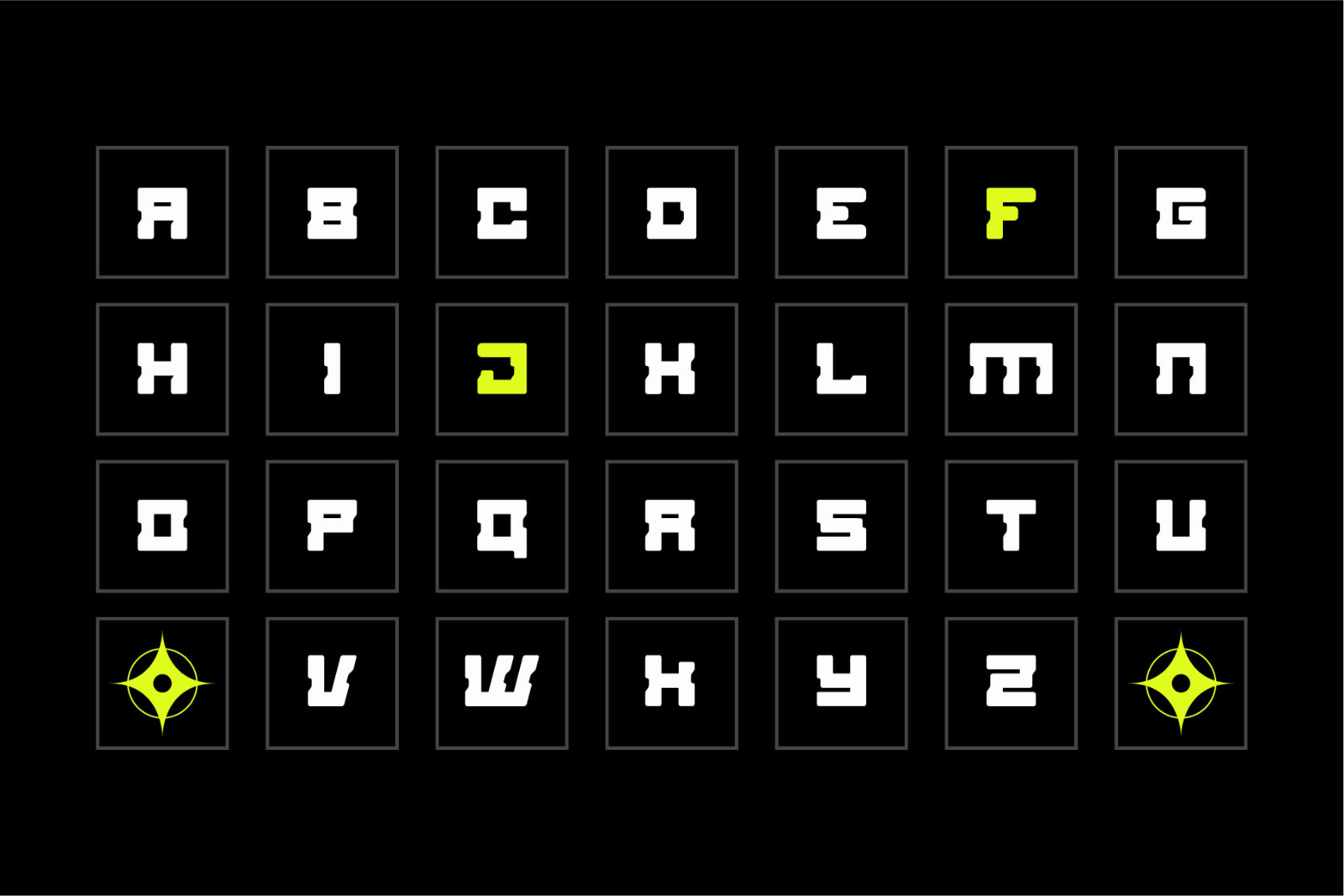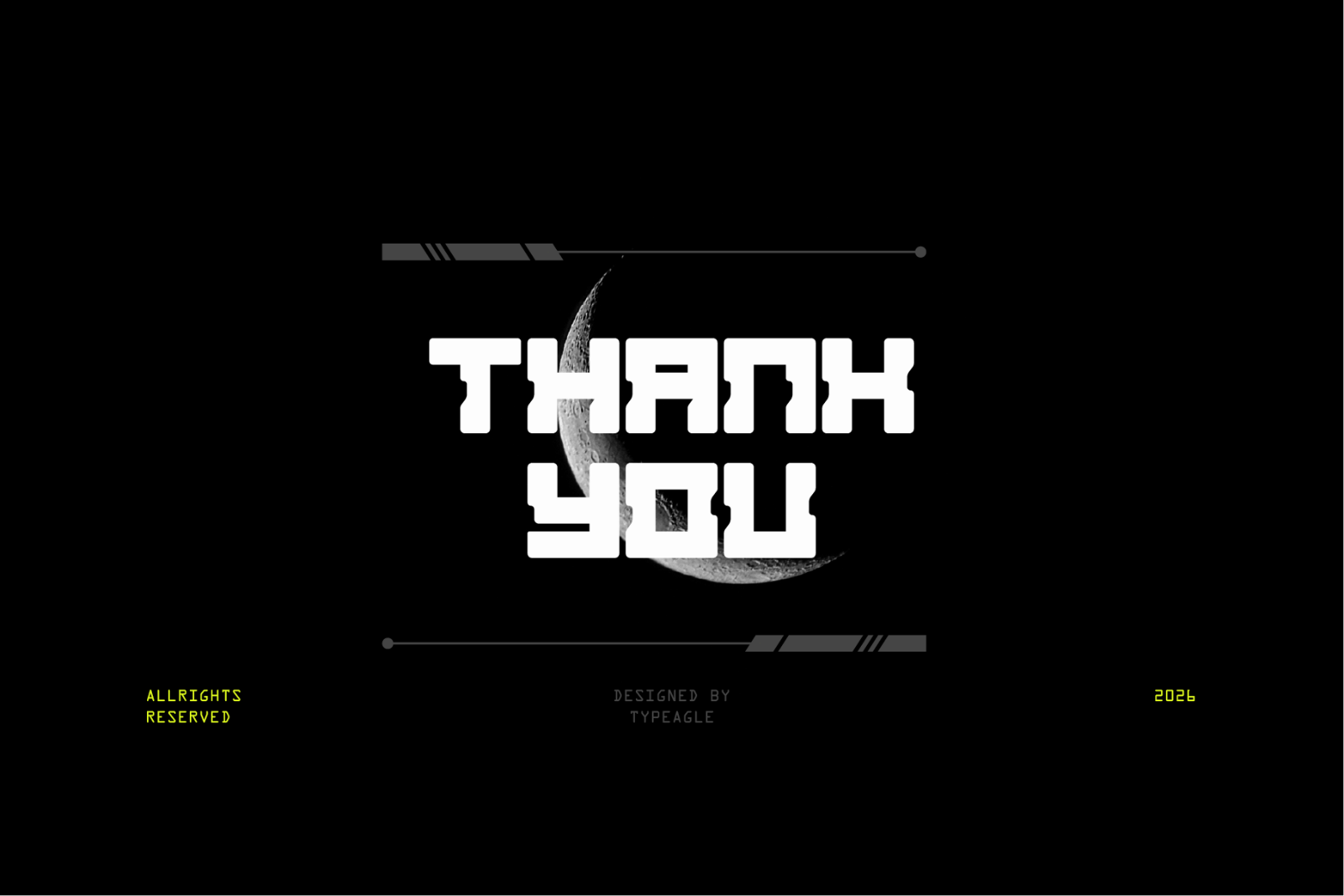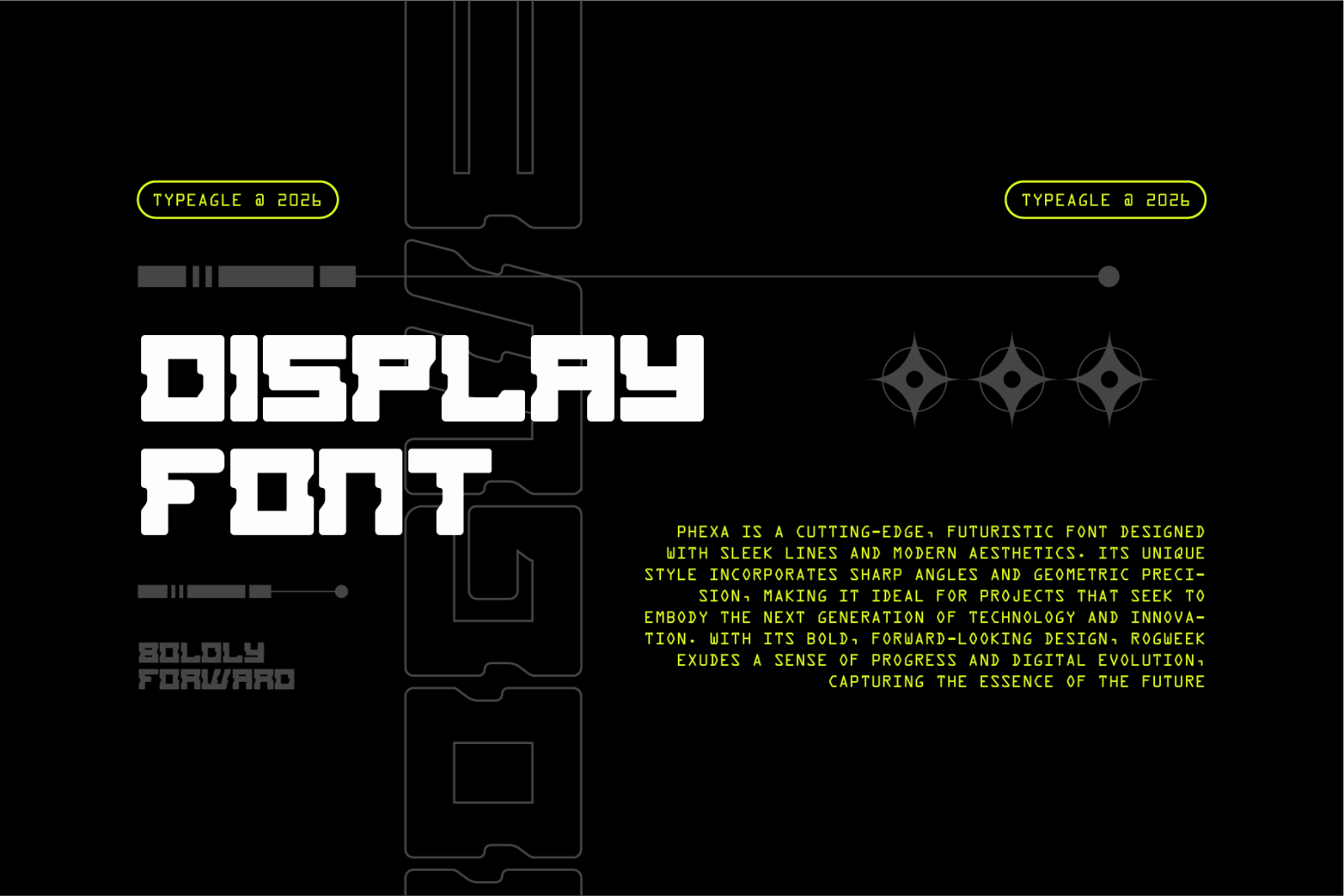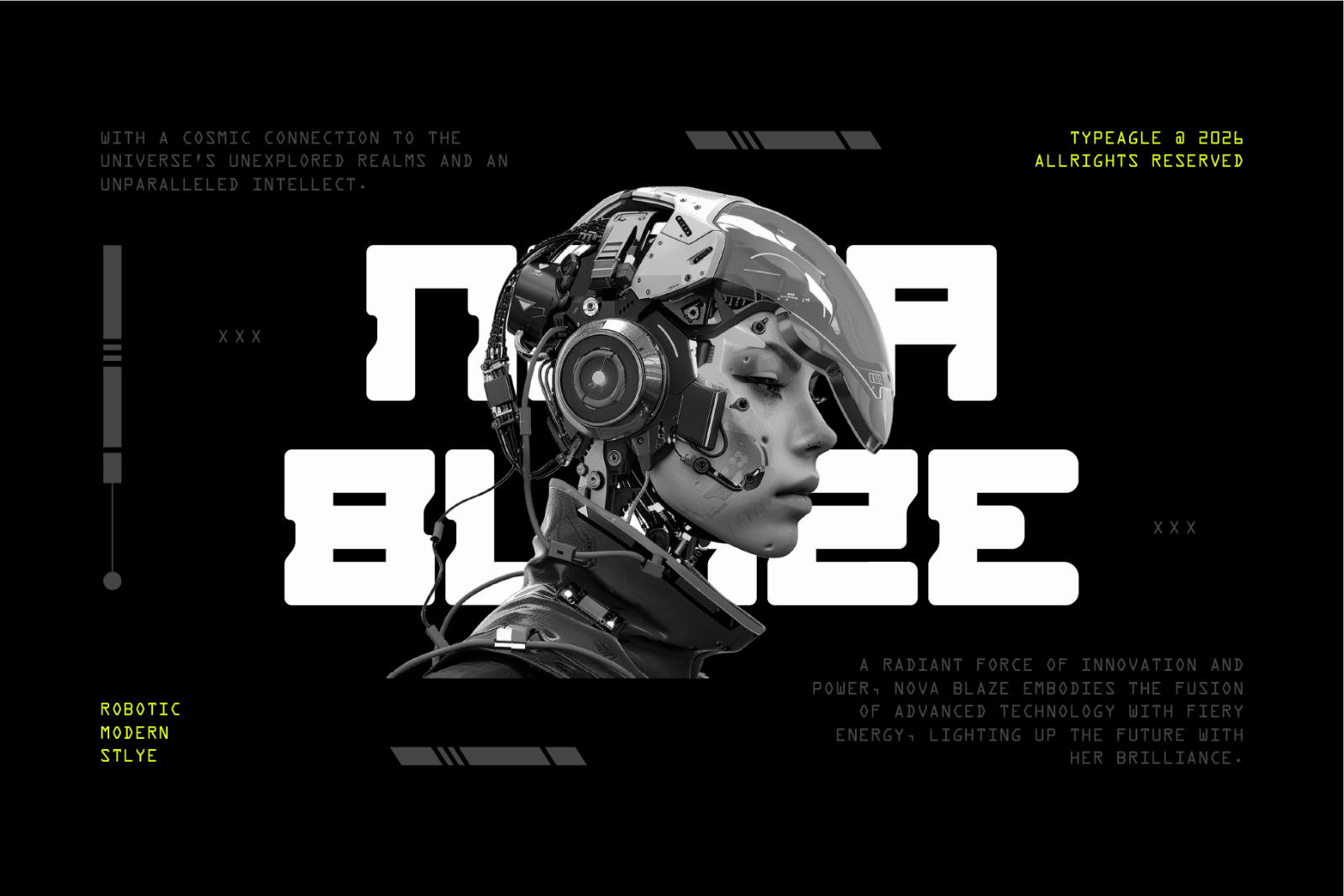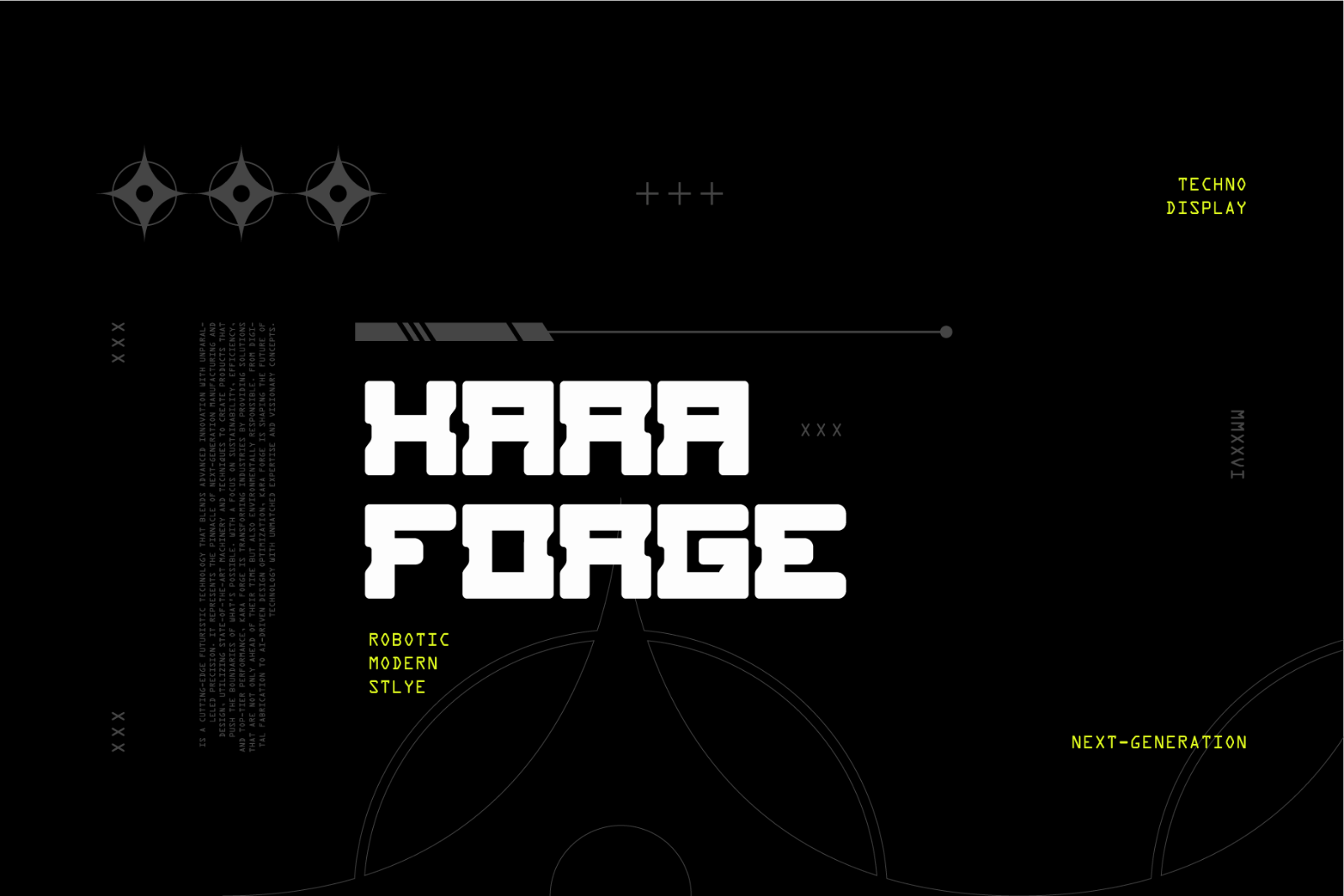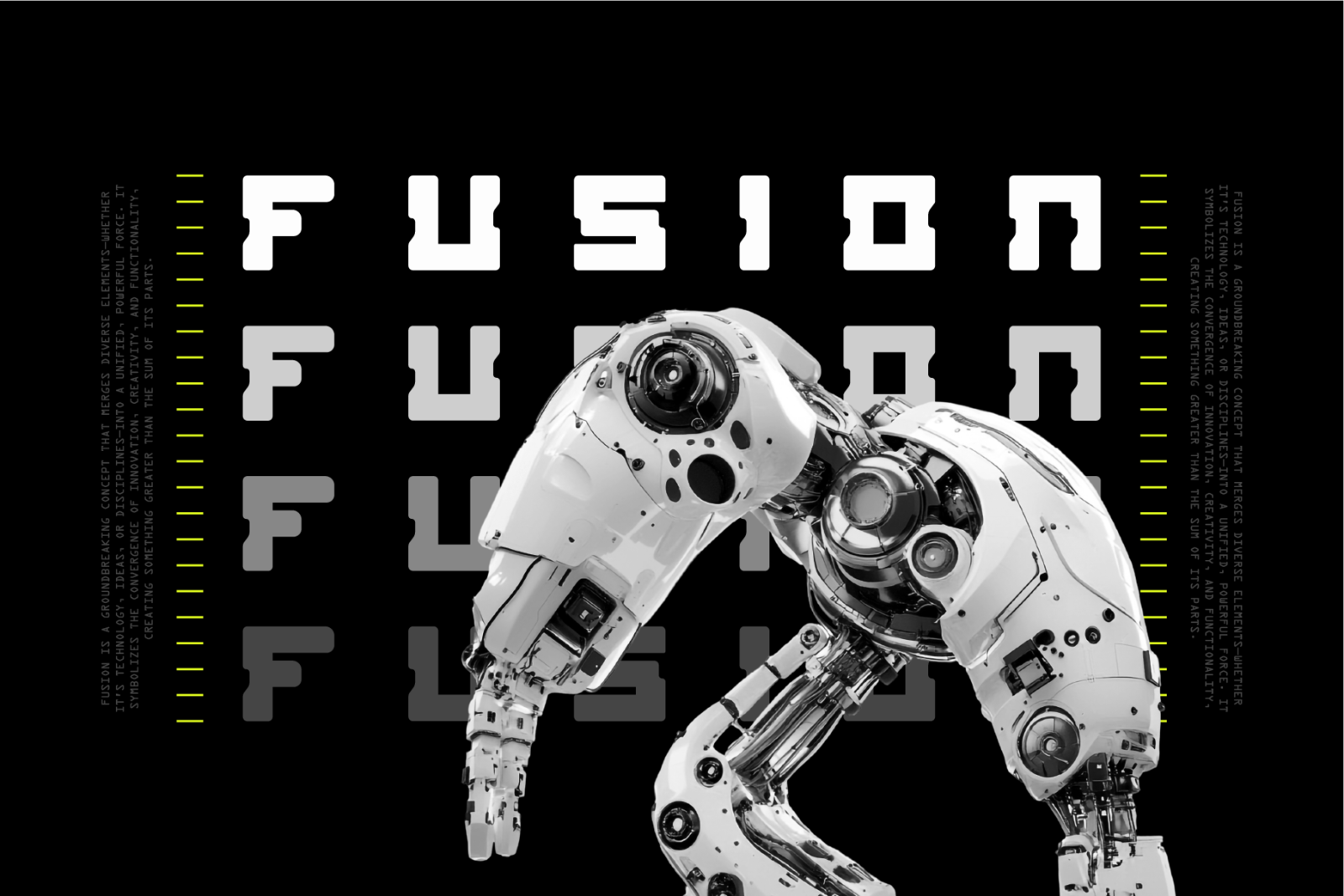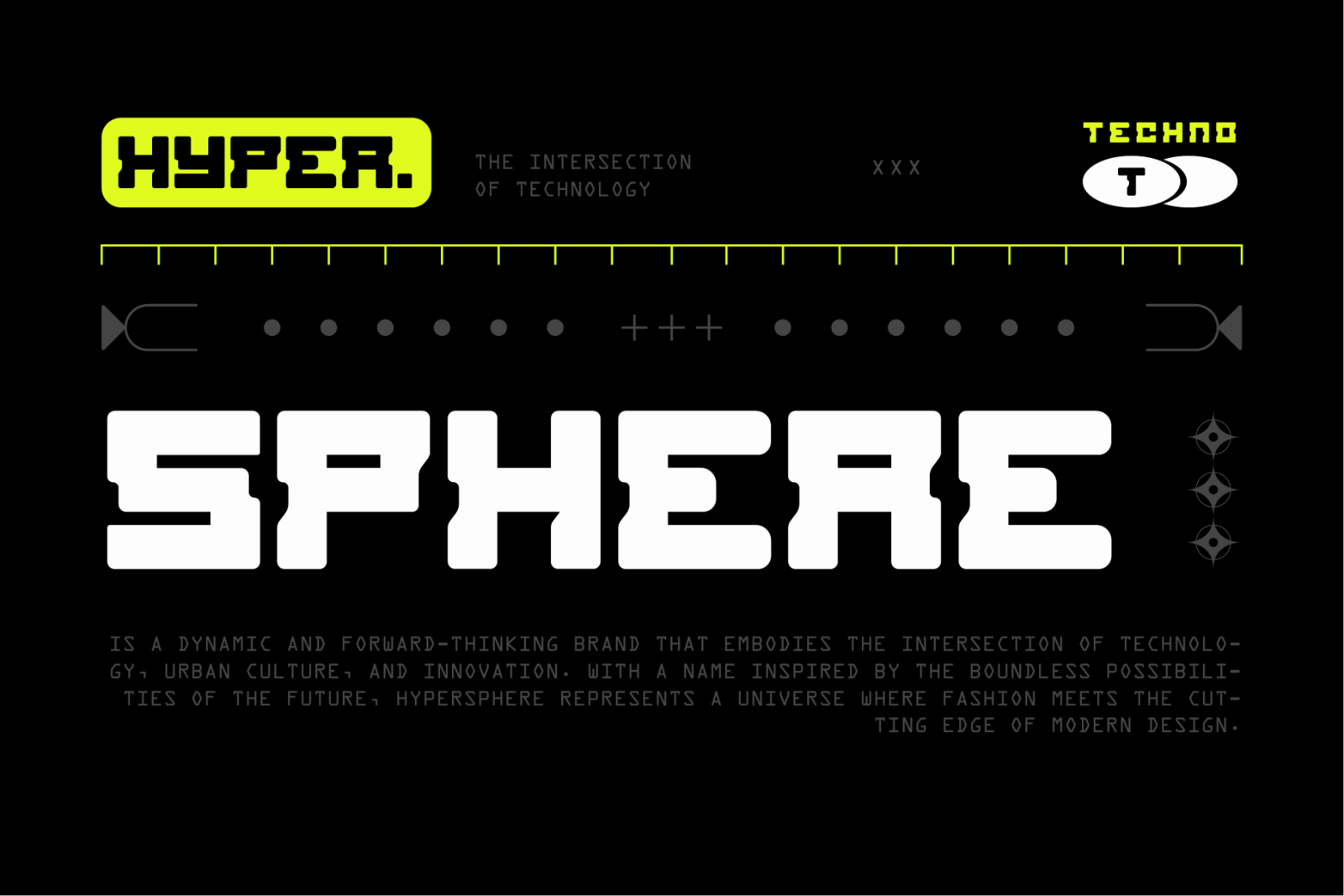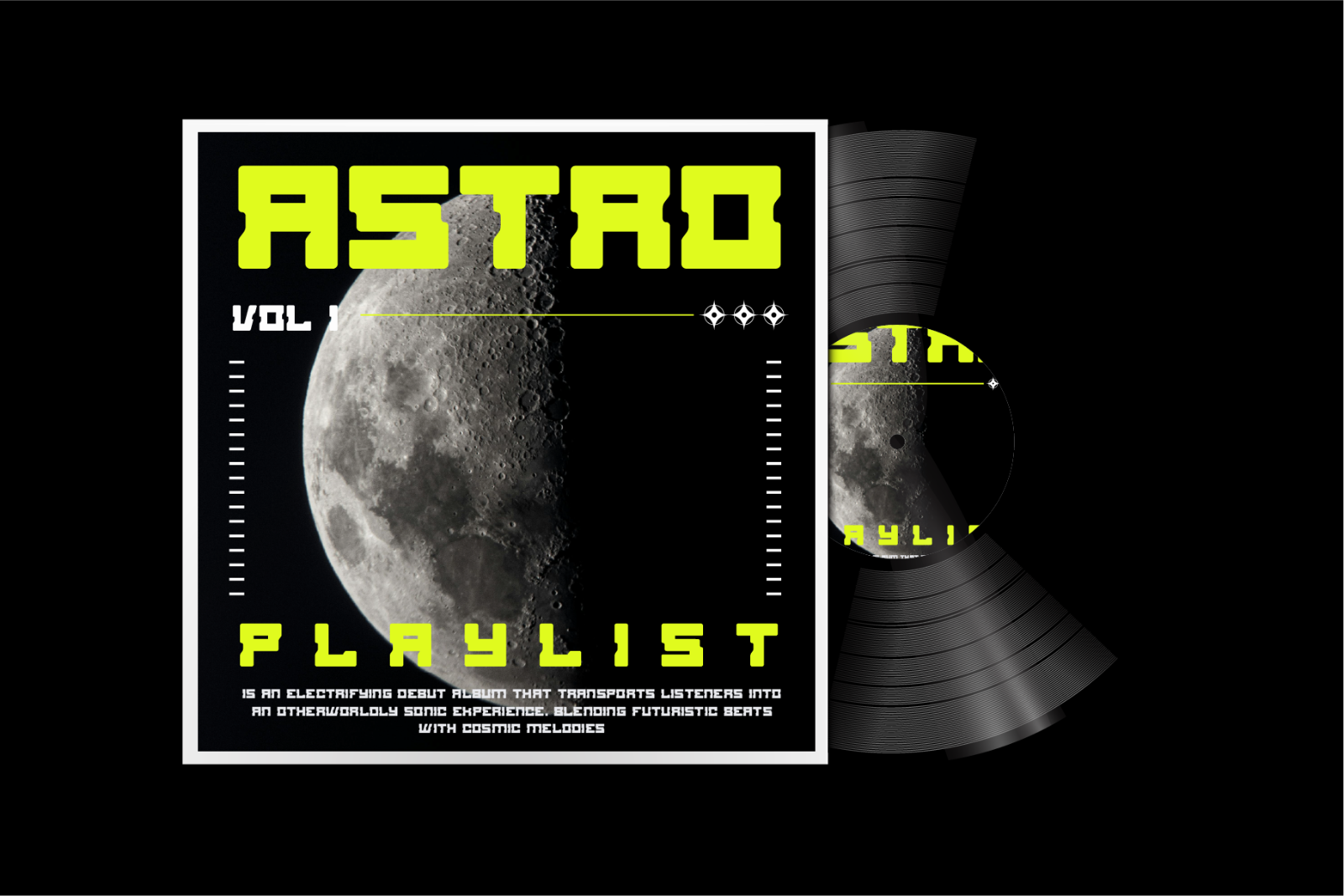
Rogweek is a modern techno display typeface crafted for interfaces, esports teams, sci-fi posters, and logo wordmarks. Wide letterforms, precise diagonals, and industrial details create a crisp, machine-made feel. Use it at large sizes for maximum impact—titles, banners, and packaging that need a sleek, forward-looking voice. Pair with a clean sans for body copy to keep layouts balanced and readable.